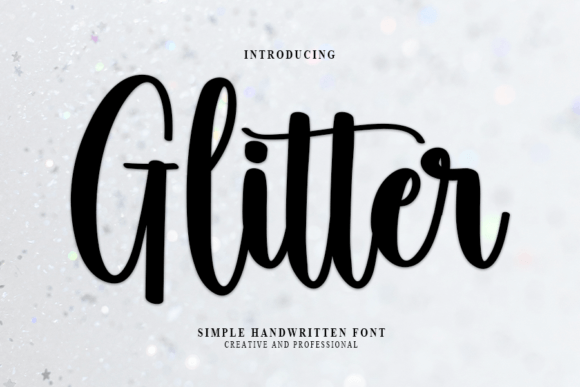
Looking for the perfect font for your flyer design? Look no further than Glitter Font! Created by ade studio, Glitter is a script font that is both delicate and unique. With its carefully crafted design, Glitter Font is sure to make your flyers stand out.
Glitter Font is not just for flyers, though. Its versatility makes it perfect for a variety of uses. Whether you're writing letters, creating invitations, designing food products, or coming up with catchy titles, Glitter Font has got you covered.
But what makes Glitter Font truly special is the emotional connection it creates with your audience. Its cool and unique design is sure to capture their attention and keep them engaged. And with its delicate handwriting, Glitter Font adds a personal touch that is hard to find in other fonts.